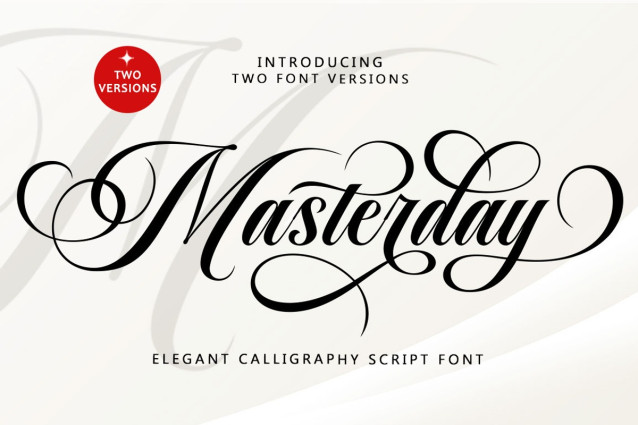
Masterday Calligraphy Font is an elegant script font featuring beautiful character variations. It comes in two versions, Masterday Elegant and Masterday Luxury, blending classic style with a modern touch, meticulously designed for an elegant look.
This font is visually appealing, clean, feminine, and easy to read thanks to its luxurious letter connections. Its classic style is perfect for a variety of formal uses, including invitations, labels, restaurant menus, logos, fashion, makeup, stationery, novels, magazines, books, greeting and wedding cards, packaging, and all types of advertising.